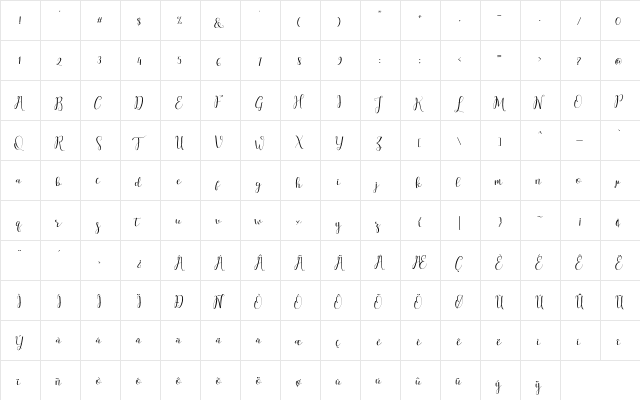
salita script Regular
Design Context for salita script Typeface
salita script flows with the natural rhythm of handwritten lettering, making it ideal for designs that call for warmth and personal expression.
Font Pairing: Combine salita script with a simple geometric sans for maximum contrast — the tension between flowing curves and clean structure is a classic typographic pairing.
Pro Tip: Pair salita script with a clean sans-serif for supporting text. The contrast between fluid script and geometric structure creates an elegant typographic hierarchy.